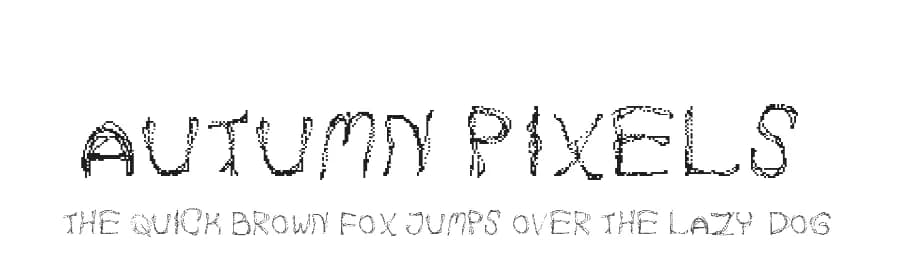
About Autumn Pixels Font
Autumn Pixels is a script & handwritten font designed by Harry Blakeman. It includes 99 glyphs, a regular weight, TTF (TrueType) format, and 107 languages. Autumn Pixels is free to download; check the license details on this page before commercial use. Script & handwritten fonts like Autumn Pixels work best for wedding invitations, greeting cards, signatures, and elegant branding.
Autumn Pixels Font is a script font that shines as a display or heading face. Pair it with a clean sans-serif or serif font for body text β the contrast creates a clear hierarchy while the two styles stay balanced and easy to read.
Autumn Pixels Font
Autumn Pixels Font is a script handwritten typeface by Harry Blakeman, ideal for logos, invitations, branding, and creative projects.